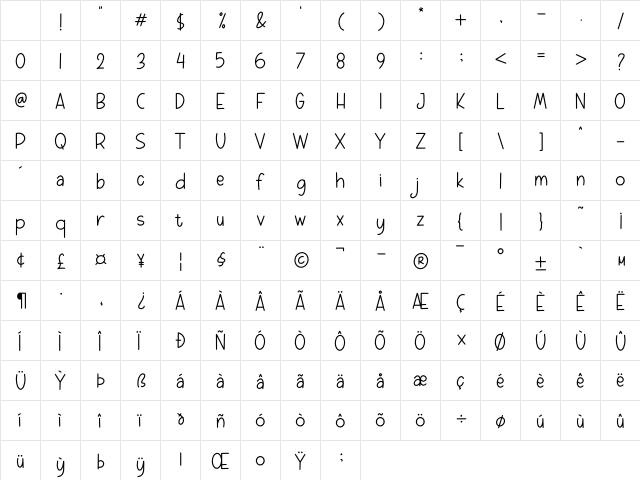
Complete WEEKLY PLANNER Regular glyph index. Displaying only characters natively supported by WEEKLY PLANNER Regular font.
WEEKLY PLANNER is a composed and adaptable typeface that performs quietly and consistently across a wide range of design contexts.